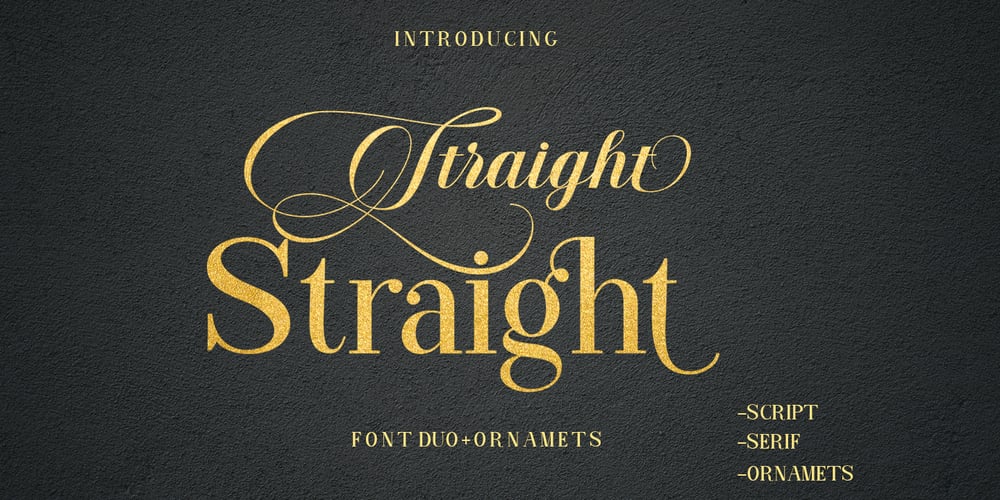
Straight Script Font Family was designed by Teuku Fahruddin and published by Typehill Studio. Straight Script contains 3 styles and family package options. Straight Font Duo + Ornaments a calligraphy script font that comes with beautiful alternative characters. a mixture of copper calligraphy with handleting style. Designed to bring style elegance. Straight attracts such a subtle, clean, feminine, sensual, glamorous, simple and very readable typeface. The classic style is perfect to apply in various formal forms such as invitations, labels, menus, Logos, fashion, make up, stationery, letterpress, romantic novels, magazines, books, greeting / wedding cards, packaging, labels.Straight Script including multiple language support. With OpenType features with stylish alternatives, ligatures and characters, allowing you to mix and match pairs of letters to fit your design, as well as a touch of ornament to make this font look elegant.Straight also has a strong neoclassical serif typeface with high contrast, cool, unique style and appearance with alternative fonts, Ligature, and multilingual support.Thank you for your visit.